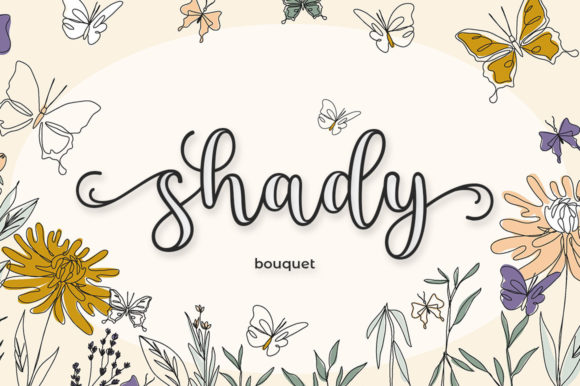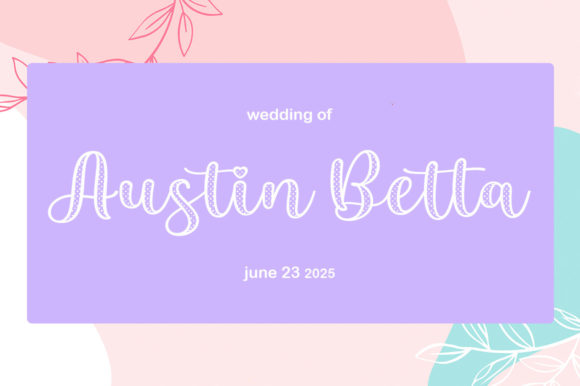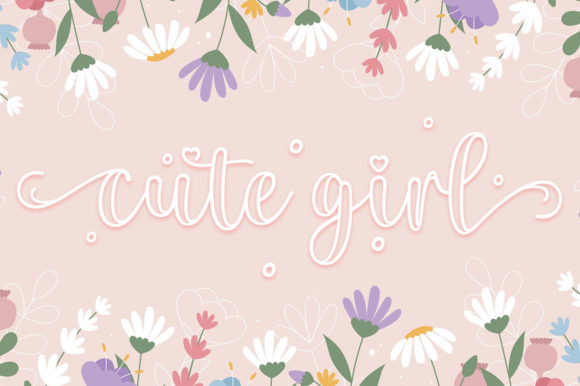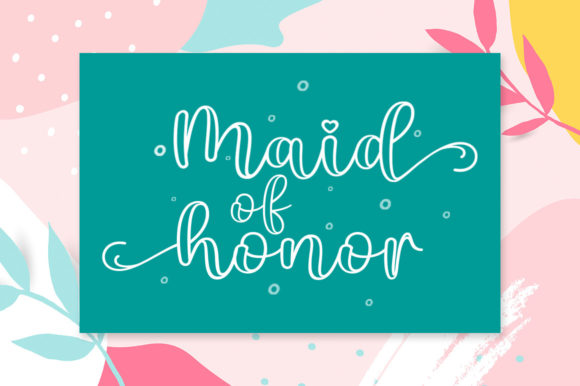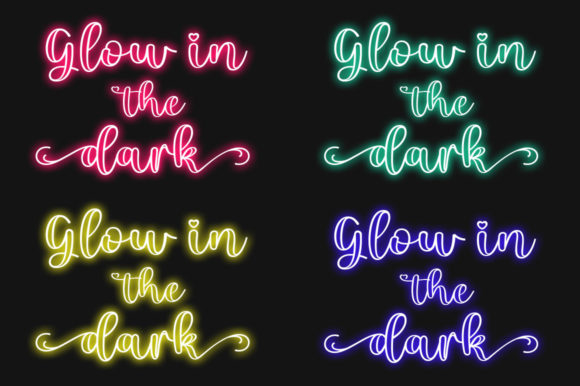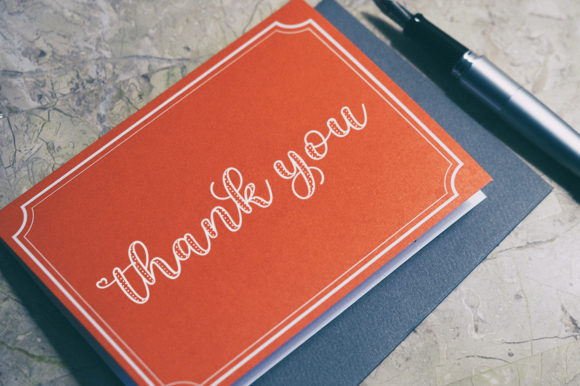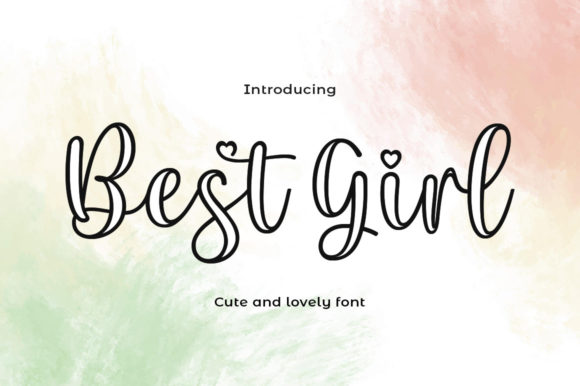
Best Girl Font
About Best Girl Font
Best Girl is a chic, refined script font that emanates sophistication and elegance. Its stylish alternates and ligatures make this font the perfect match for any project.